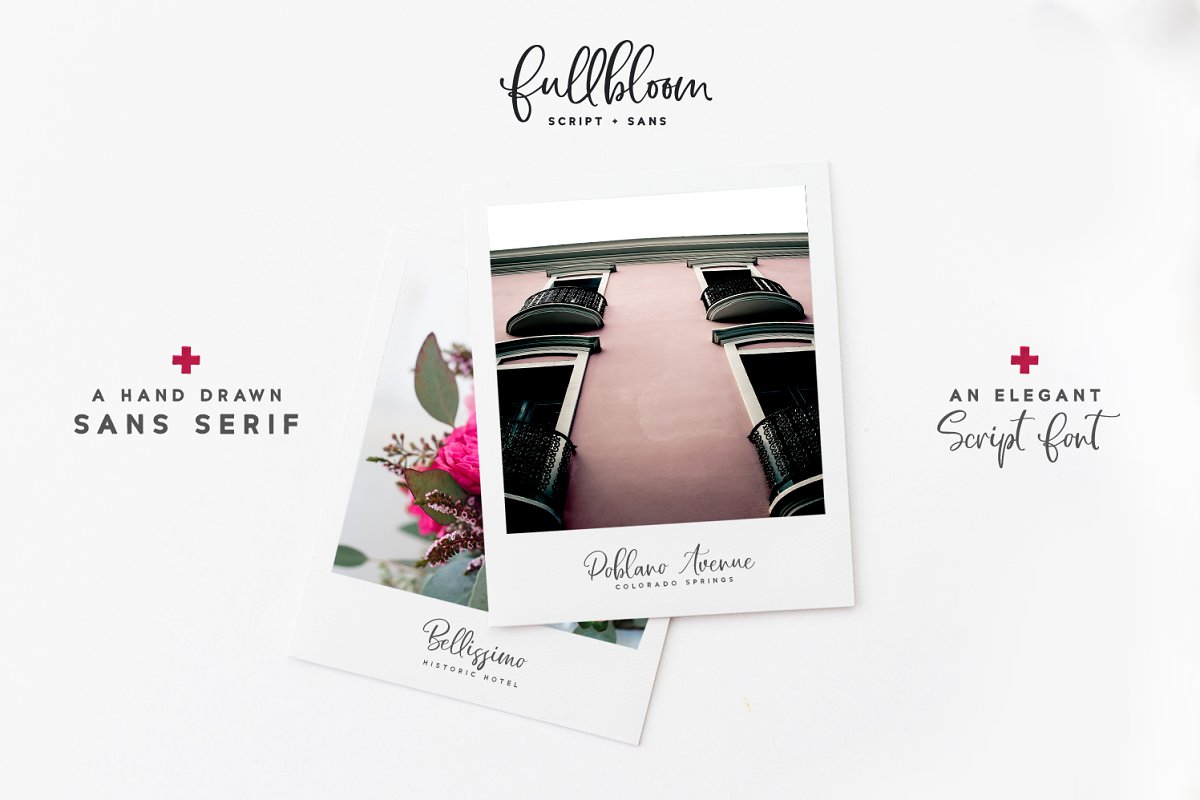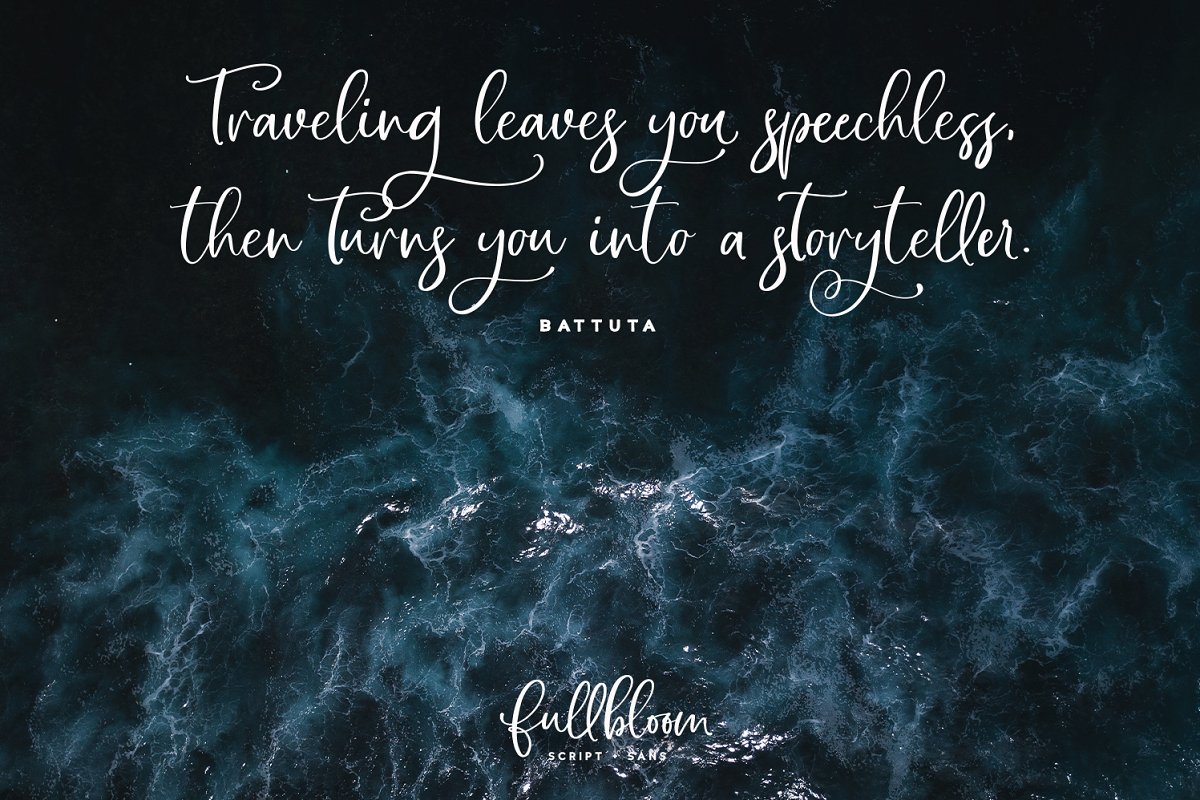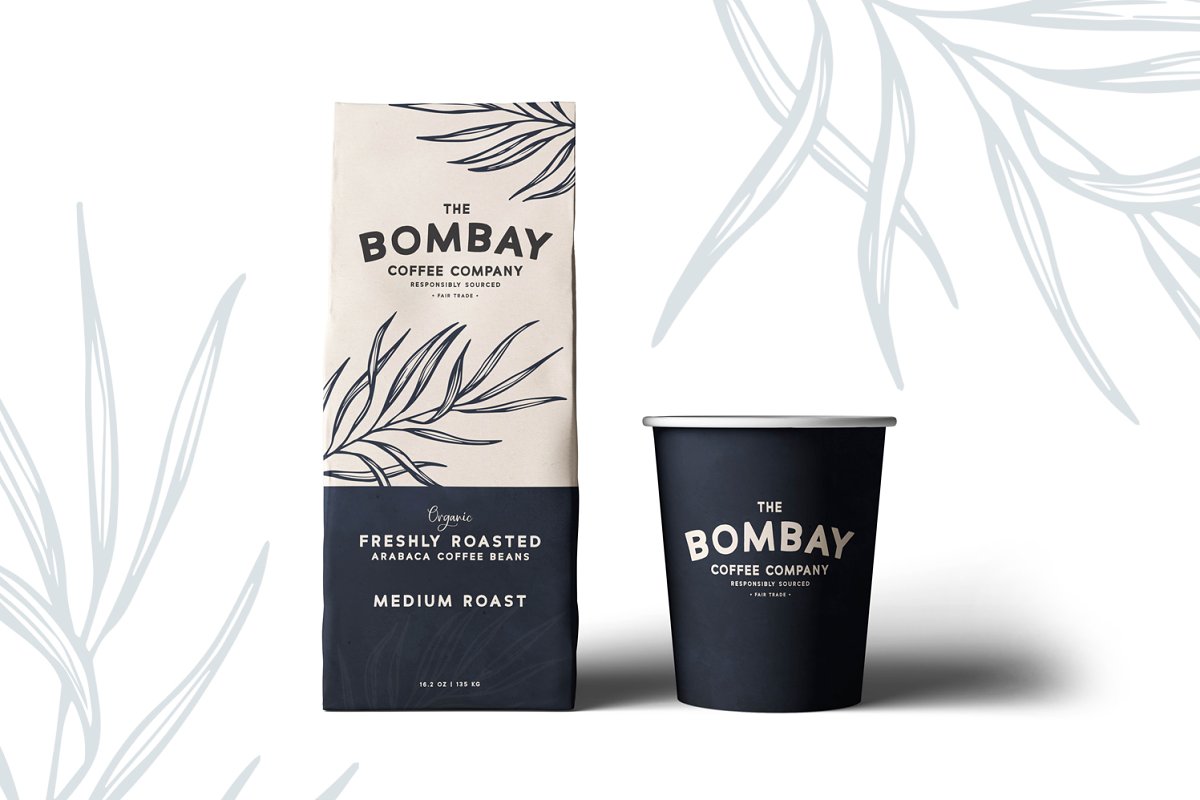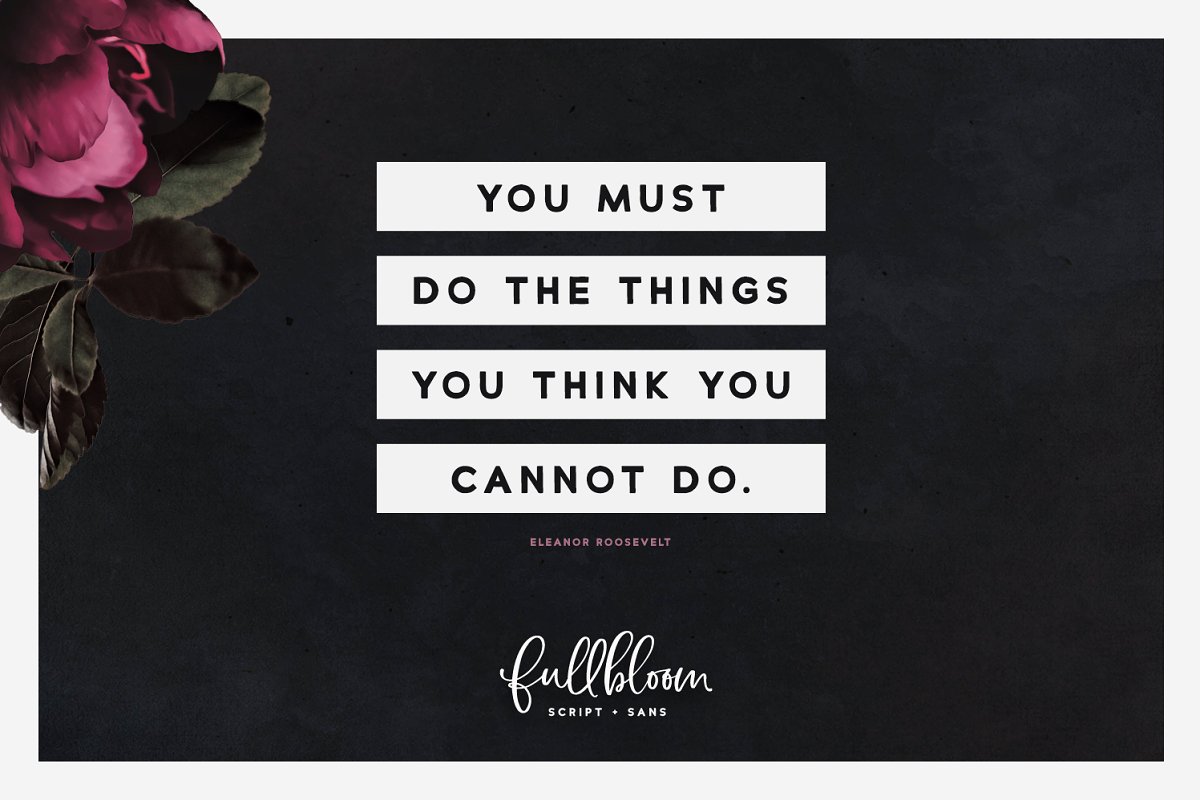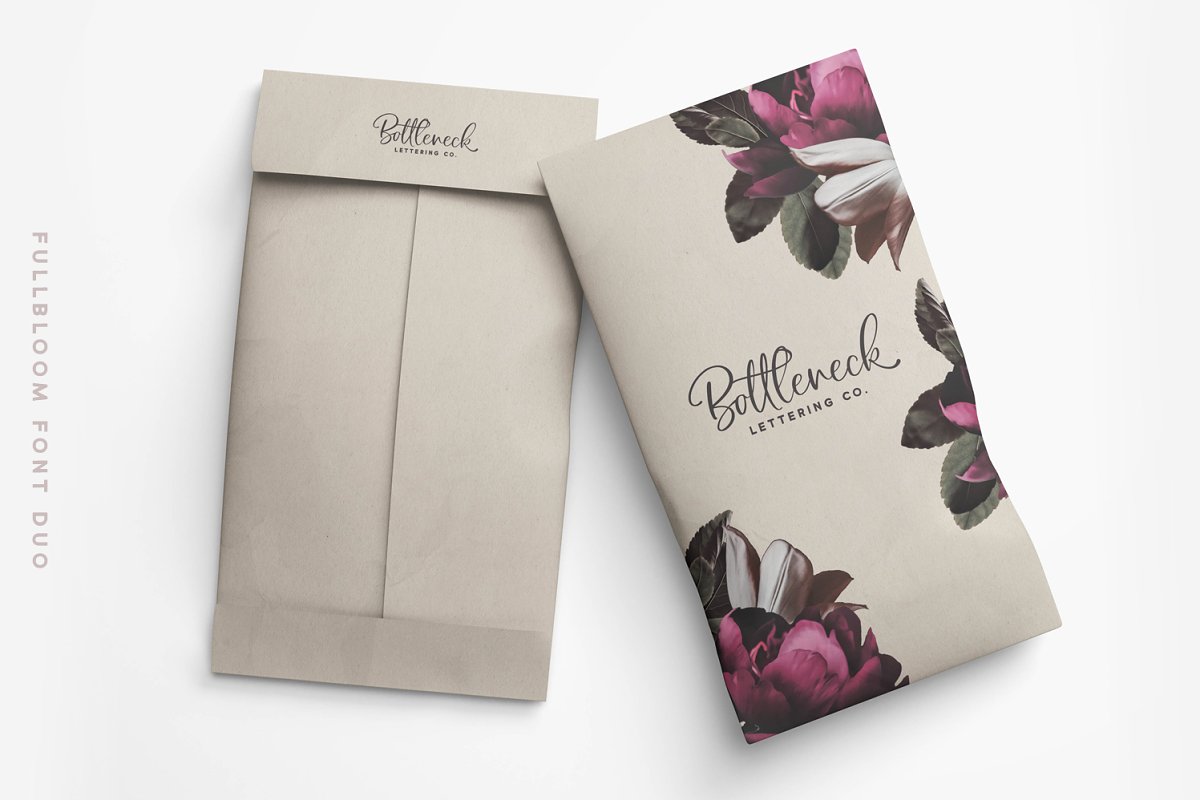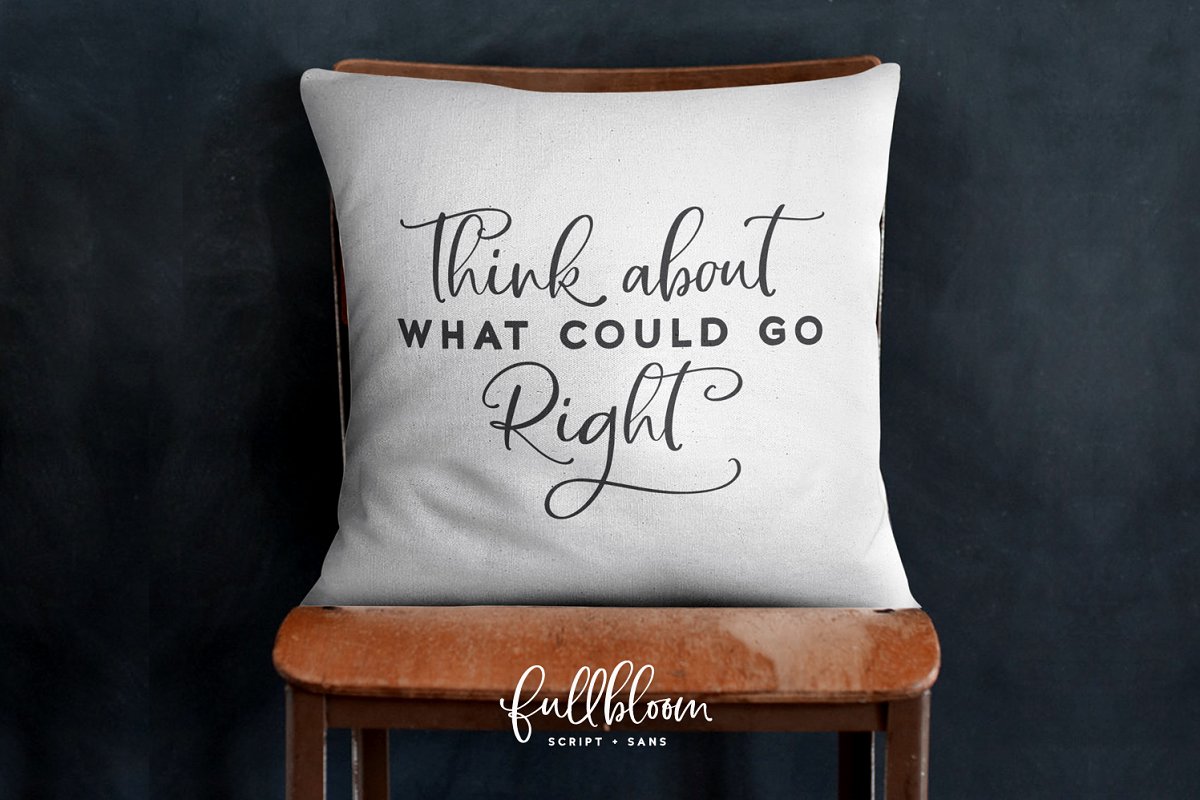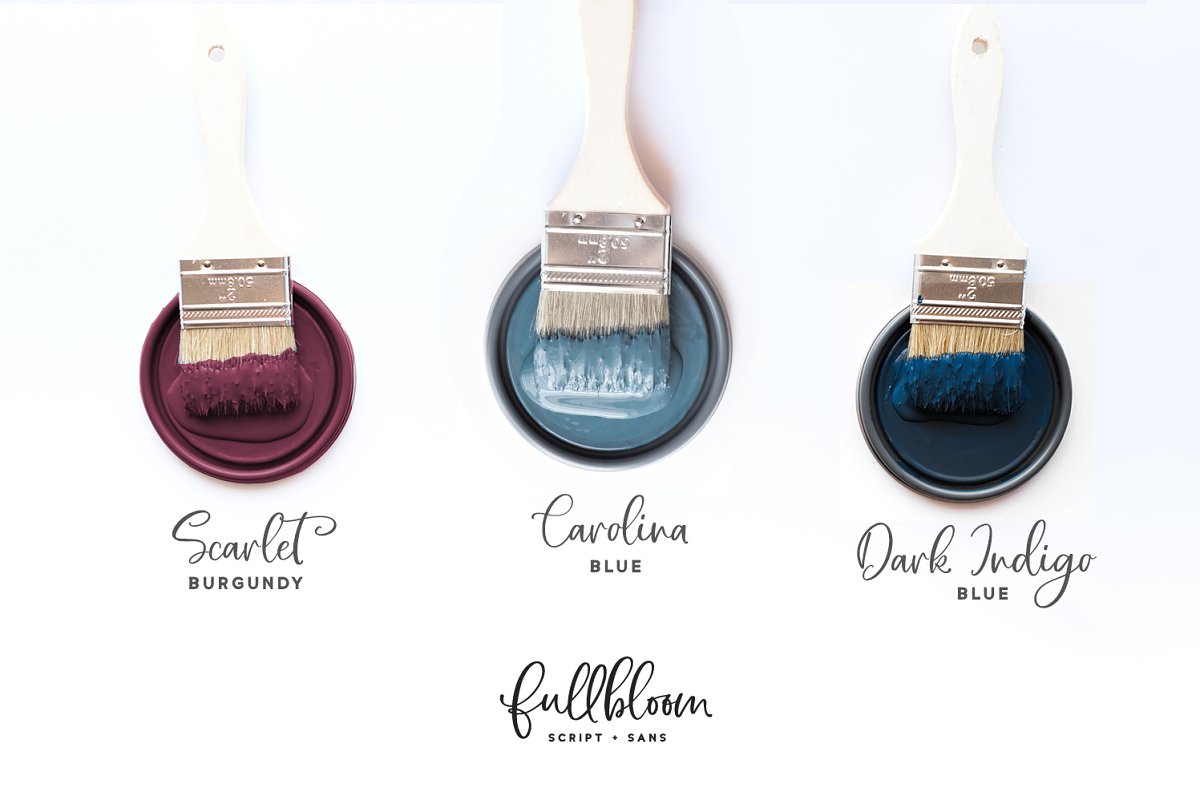
About the Fullbloom Duo Font
💕WHAT’S INCLUDED (3 Typefaces):1, Fullbloom Script – A sweet, handwritten script with language support and 48 alternates (OTF), 2, Fullbloom Italic – An italic version with an 8 degree slant, to add a touch of elegance to your work (OTF), 3, Fullbloom Sans – A perfectly paired, handwritten sans serif to go with just about every script